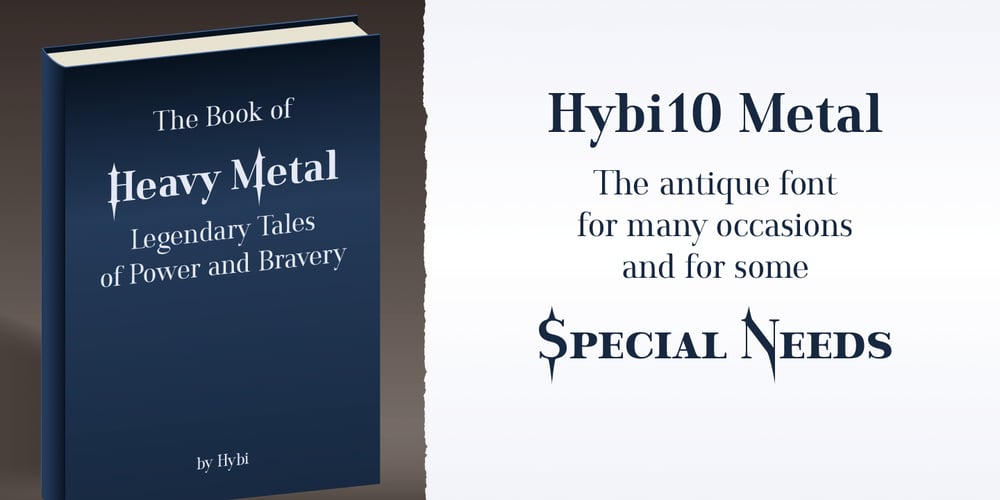
Hybi10 Metal
Hybi10 Metal font
Hybi10 Metal Font Family was designed by Peter Hübner and published by Hybi-Types. Hybi10 Metal contains 6 styles and family package options. With its straight and clean face Hybi10 Metal can be a quite normal antique font family. But the alternates with different versions of spikes at the uppercase letters gives it an additional use. Decide for your own, how to use it. The styles with real capitals widens the range of use too.